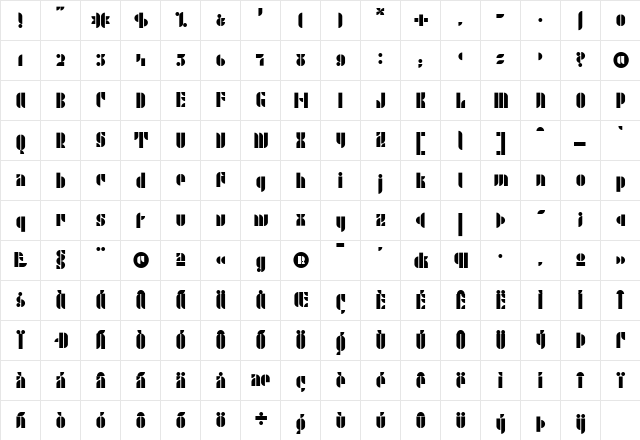
P22Albers Regular
Design Context for P22Albers Typeface
P22Albers takes a measured approach to typography — its balanced proportions and neutral character make it a reliable workhorse for both digital and print work.